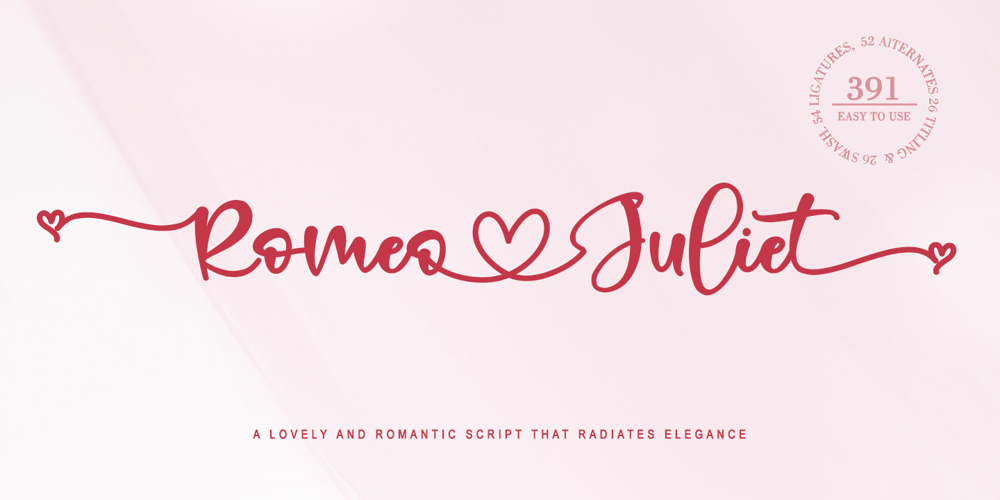
Romeo Juliet Font Family was designed by Thomas Aradea and published by Letterara. Romeo Juliet contains 2 styles and family package options. Romeo Juliet is a beautiful and romantic handwritten font. It features amazing sweet heart-shaped titling. These sweet handwritten fonts with connecting hearts are great for creating personalized items. This font is PUA encoded which means you can access all of the cute glyphs and swashes with ease! It also features a wealth of special features including alternate glyphs and ligatures.Fall in love with its authentic feel and use it to create gorgeous wedding invitations, beautiful stationary art, eye-catching social media posts, and cute greeting cards, and many more.